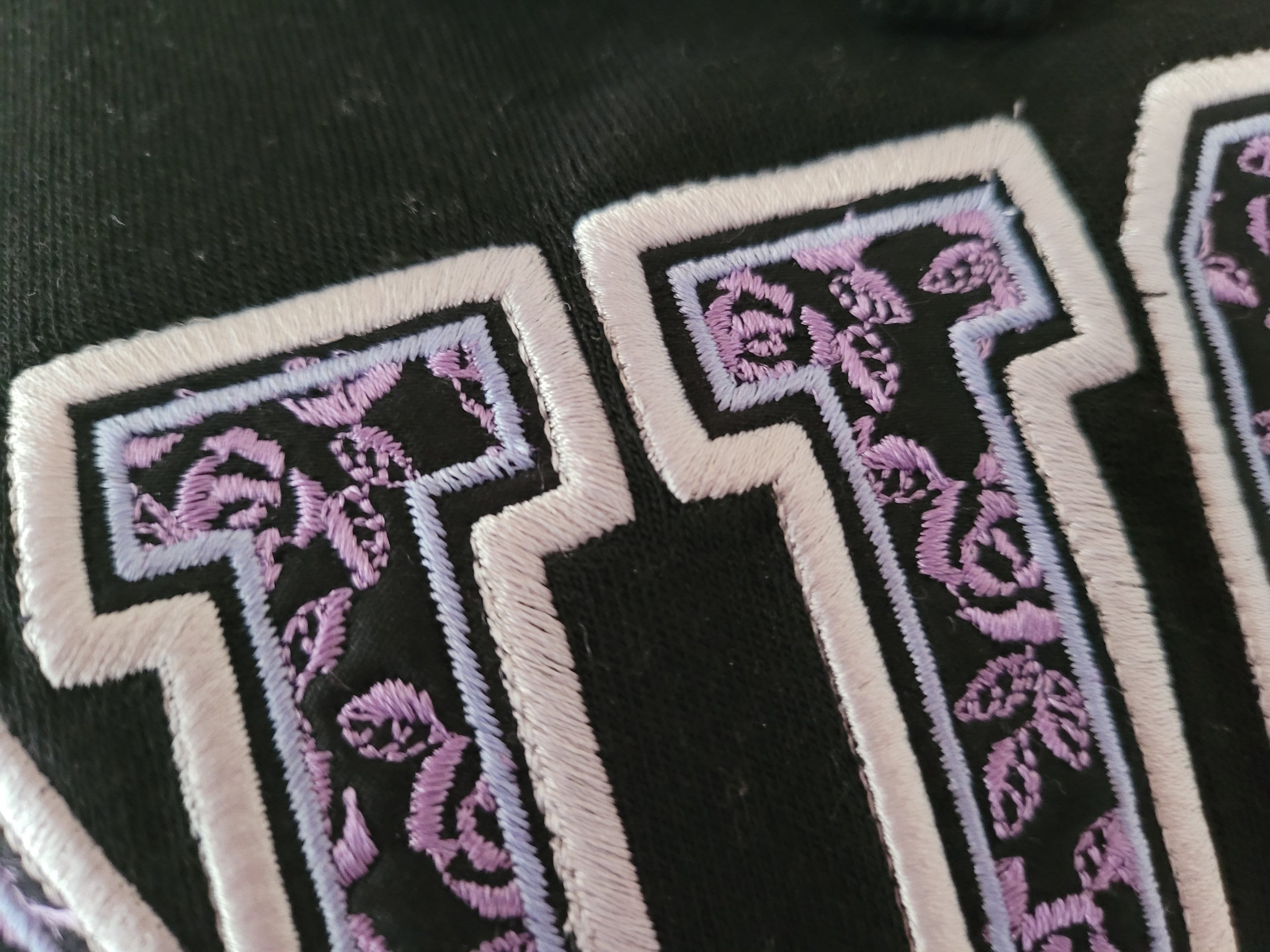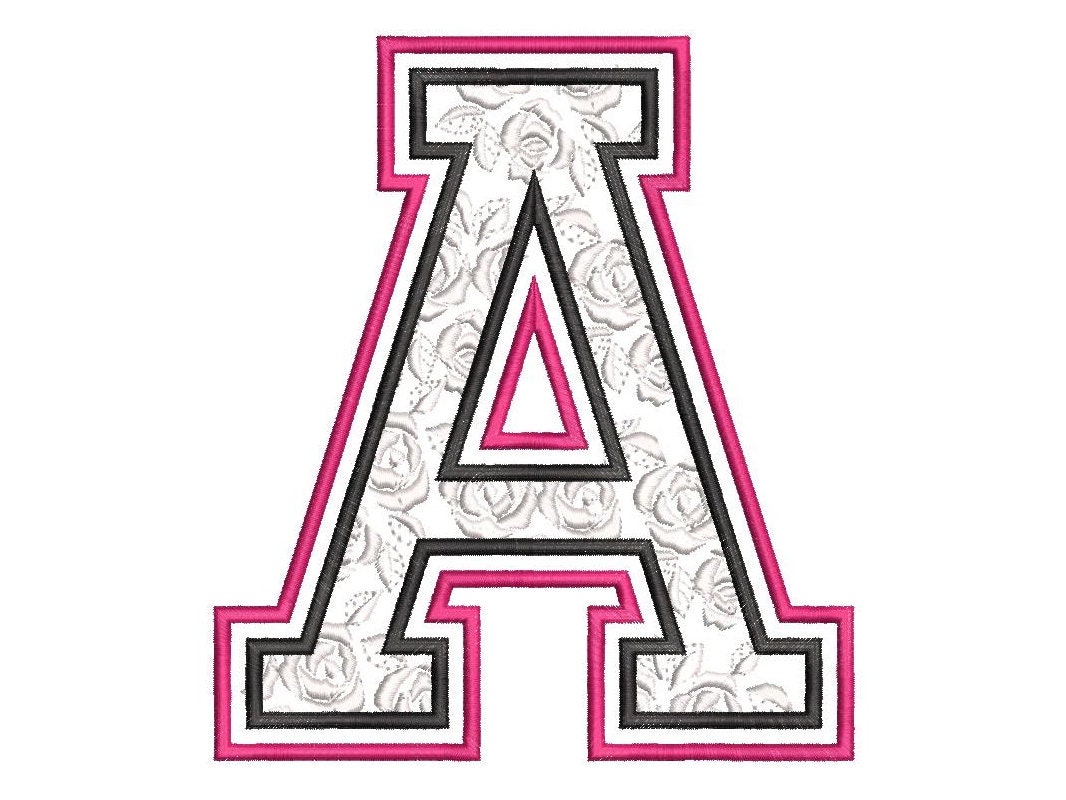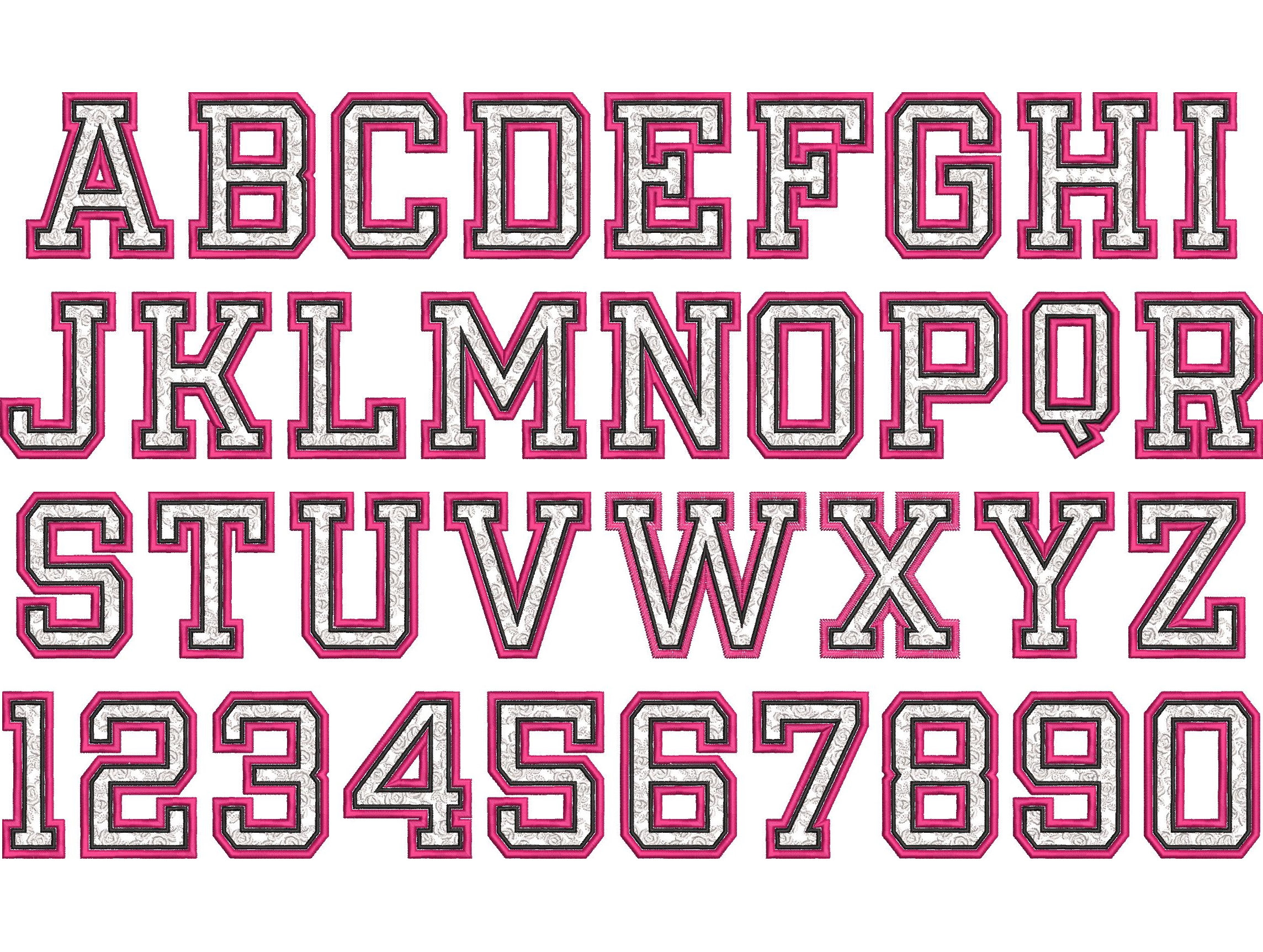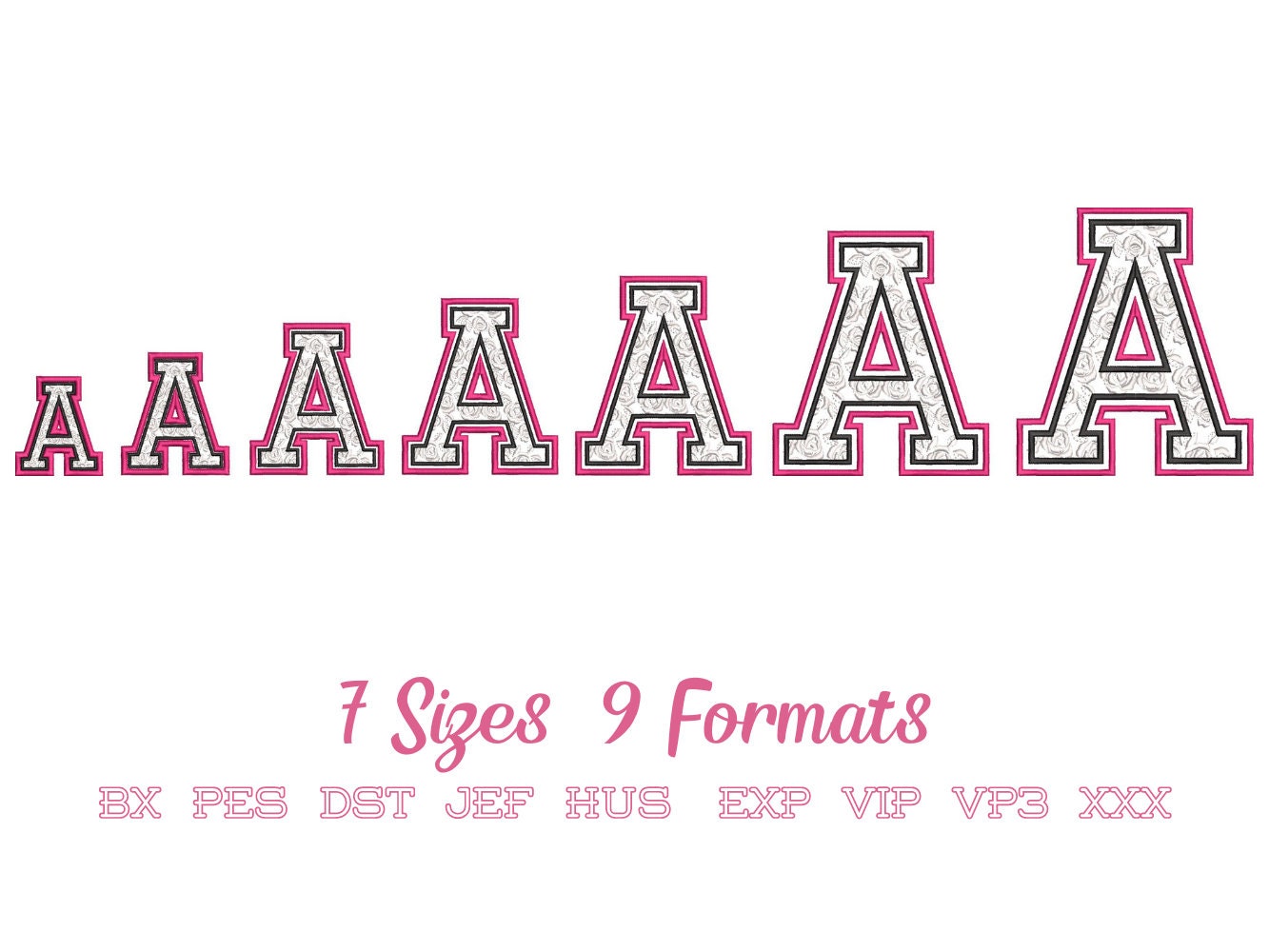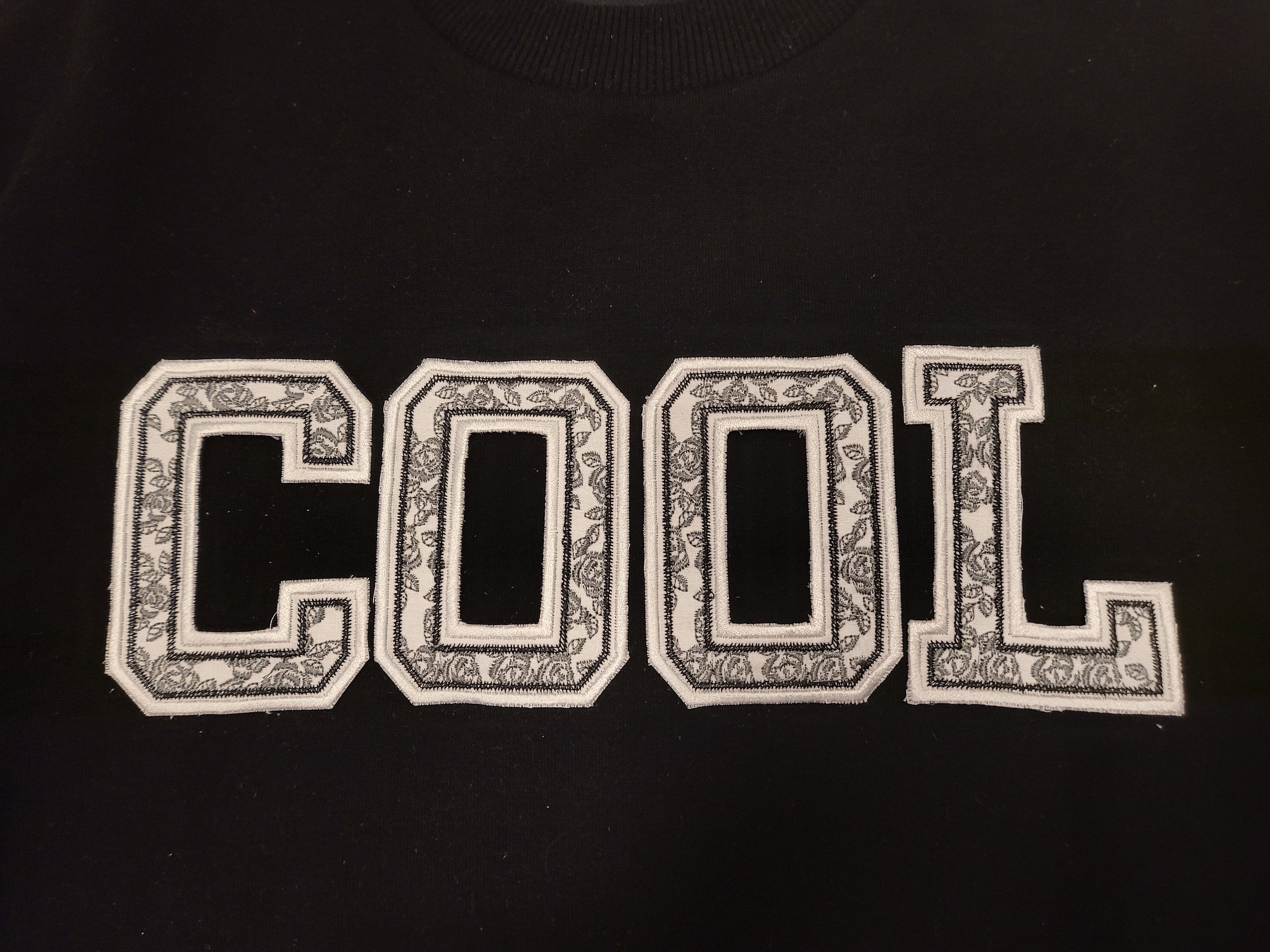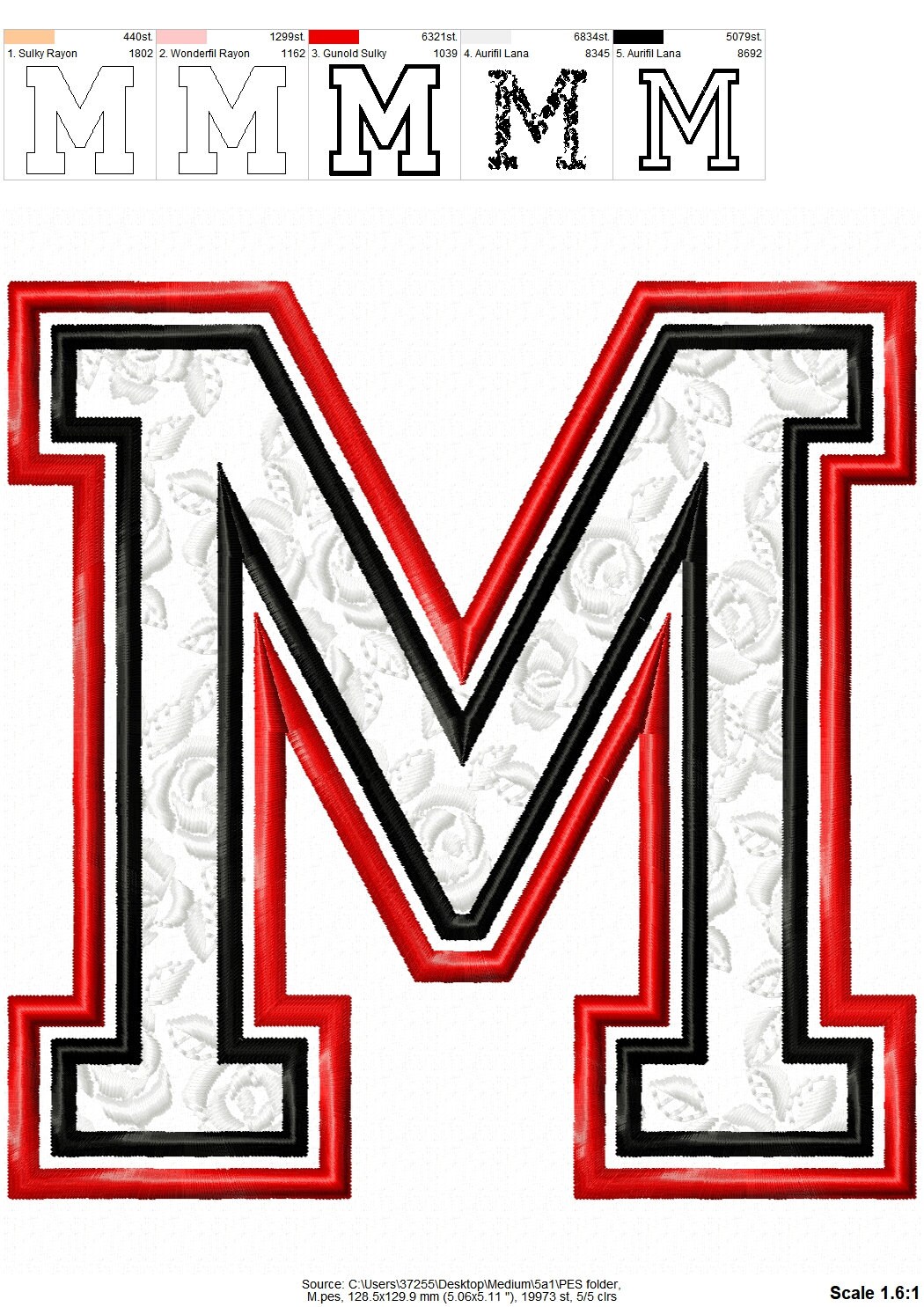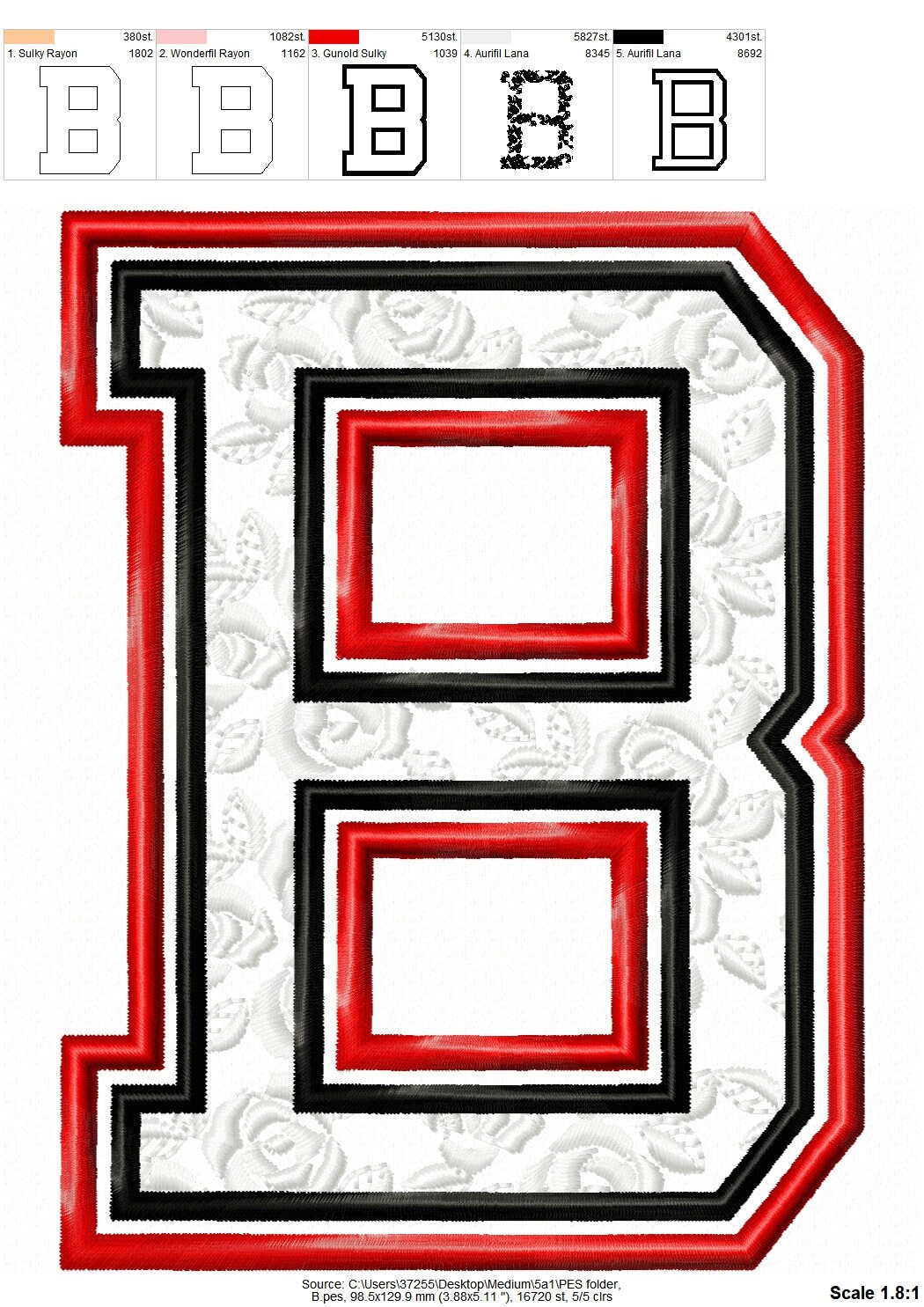
Girl Sport Rose Lace Font whole alphabet A-Z and numbers awesome girly lacy letters applique machine embroidery designs in many sizes, BX included
Uppercase A-Z and numbers.
The design looks like lace, the background fabric looks through. Stunning effect.
Please note, there are tiny roses inside the letter/number. The flowers are part of the design.